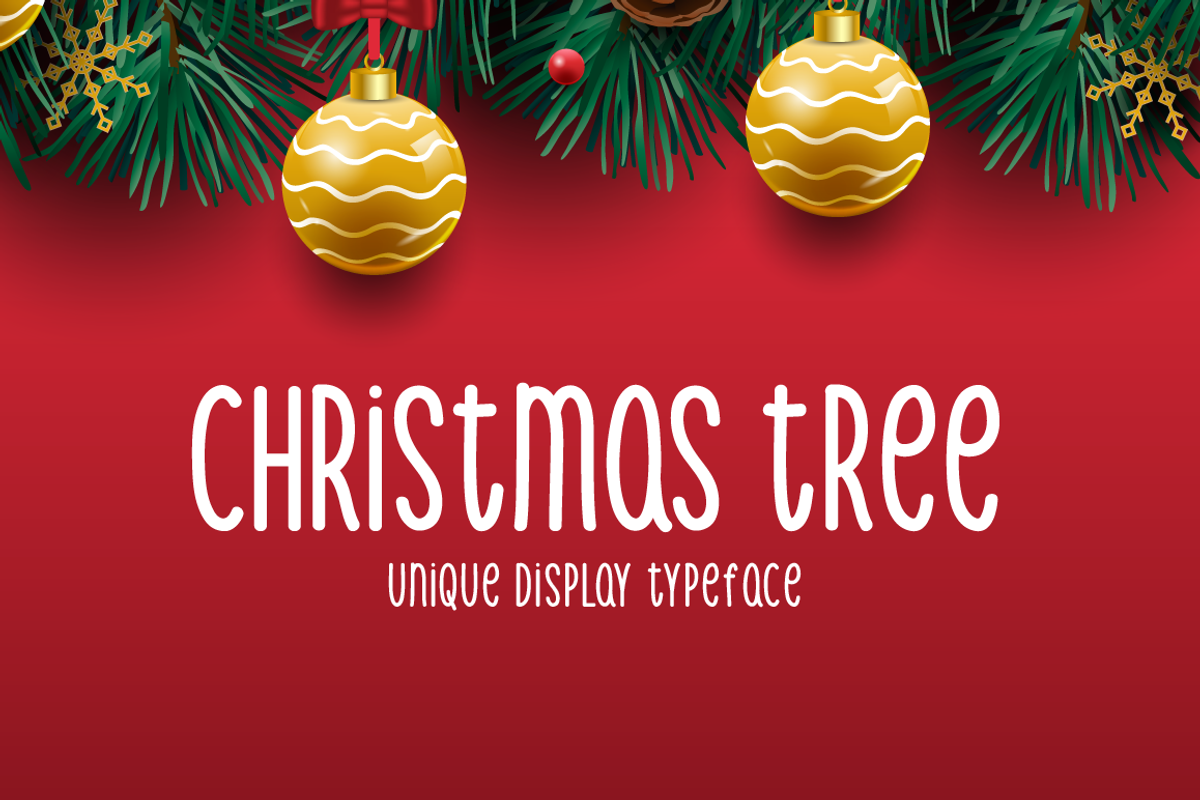
Christmas Tree Typeface Free Download is a festive and fun typeface designed to capture the cheerful spirit of the holiday season. With its playful, decorative design, this font is perfect for creating Christmas cards, party invitations, holiday decorations, and other seasonal projects.
The font’s unique design, with its whimsical elements, makes it ideal for holiday-themed designs that need to evoke joy and warmth. Whether you're designing a holiday greeting, a festive event poster, or Christmas-themed branding, Christmas Tree brings a fun, festive touch to your typography.